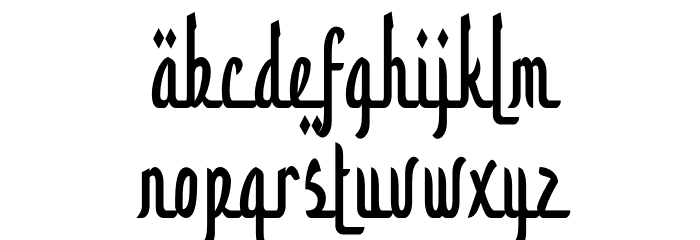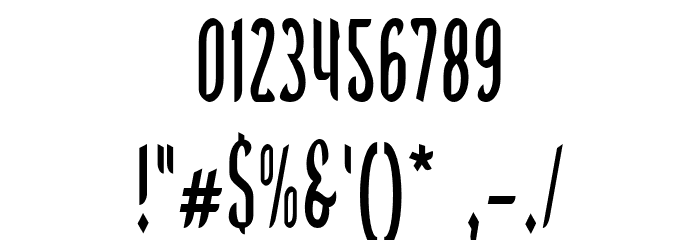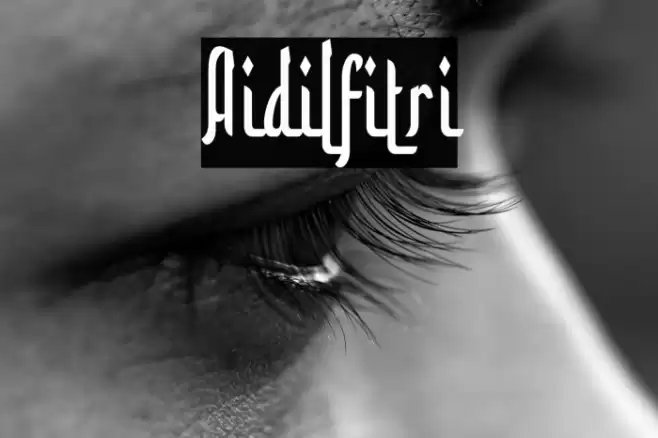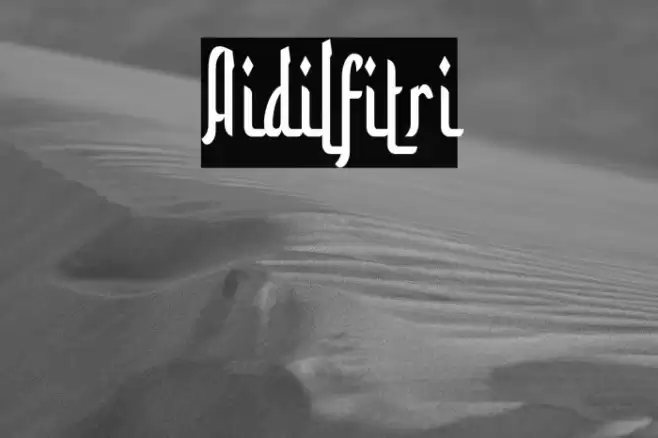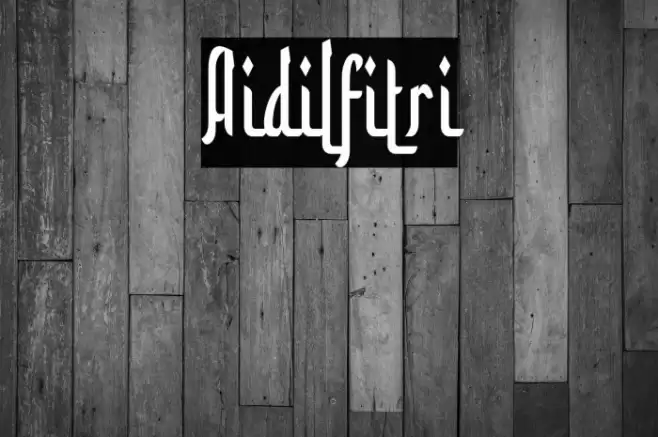
Aidilfitri Font
This font features a unique blend of modern and vintage elements, characterized by its tall, narrow letterforms with distinctively curved and angular strokes. The uppercase letters exhibit a strong vertical emphasis, while the lowercase letters maintain a consistent flow with slightly exaggerated ascenders and descenders. The numerals are bold and easily legible, complementing the overall style. Special characters are designed with the same attention to detail, ensuring a cohesive look across all glyphs. This font's distinctive appearance makes it suitable for a variety of creative applications.
A modern-vintage font with tall, narrow letterforms and unique curved strokes.
- Proposed Projects: Ideal for branding, poster design, and editorial layouts where a distinctive and stylish typeface is desired.
- Overall Style: Modern, Vintage